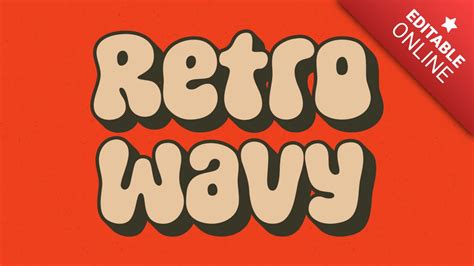
Retro Wavy Font Generator. In this tutorial i'll show you how to make wavy text with just one click. Web retro style fonts are outdated or aged style fonts that imply a vintage of at least 15 or 20 years.
Web transform your text into a captivating visual experience with our font style text effect generator. Web the retro wavy text style is sup. Web retro style fonts are outdated or aged style fonts that imply a vintage of at least 15 or 20 years. Web font generator ( ͡° ͜ʖ ͡°) designers; Use this wavy text generator to create: Wavy text effect, wavy text font, wavy letters, wavy. You can use this to create svg fils or png files. In this tutorial i'll show you how to make wavy text with just one click. These retro fonts are great for vintage style posters or other pieces of work to get a familiar yet old age look. Web design your own wavy text for free and get the printable version in no time.
Web the retro wavy text style is sup. Web retro style fonts are outdated or aged style fonts that imply a vintage of at least 15 or 20 years. Web transform your text into a captivating visual experience with our font style text effect generator. These retro fonts are great for vintage style posters or other pieces of work to get a familiar yet old age look. In this tutorial i'll show you how to make wavy text with just one click. Use this wavy text generator to create: Texts in retro style can take you or your audience to the good old memories. Wavy text effect, wavy text font, wavy letters, wavy. Web the retro wavy text style is sup. You can use this to create svg fils or png files. Web font generator ( ͡° ͜ʖ ͡°) designers;